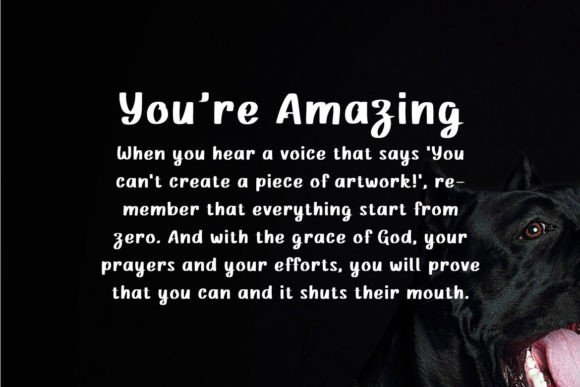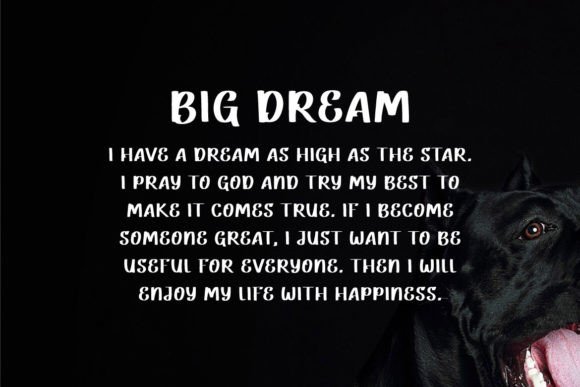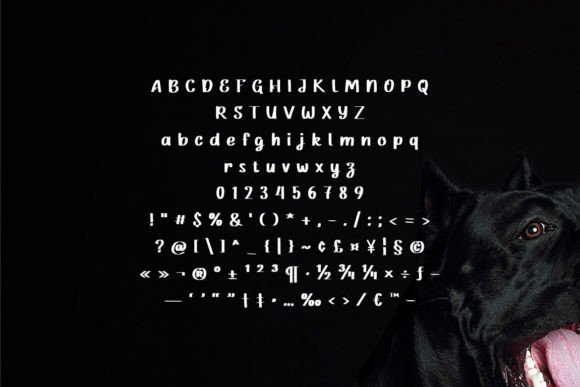
Unleash the Mischief: Introducing the Bad Dog Font
Are you tired of using the same old fonts in your designs? Do you want to add a touch of playfulness and mischief to your text? Look no further than the Bad Dog font, a bold and daring comic display typeface that’s sure to make your designs stand out.
What is Bad Dog Font?
Bad Dog font is a fun and quirky display font that’s perfect for creative projects that need a bit of attitude. With its bold lines, playful curves, and mischievous vibe, this font is ideal for eye-catching headlines, posters, and other designs that need to grab attention.
Key Features of Bad Dog Font
- Bold and Playful: Bad Dog font is a bold and playful typeface that’s perfect for making a statement.
- Comic Display Typeface: With its comic-inspired design, this font is perfect for adding a touch of whimsy to your designs.
- Mischievous Vibe: Bad Dog font has a fun and daring vibe that’s sure to add a bit of mischief to your text.
- Easy to Read: Despite its bold and playful design, Bad Dog font is easy to read, making it perfect for headlines and other display text.
Uses for Bad Dog Font
Bad Dog font is perfect for a wide range of design projects, including:
- Posters: Add a touch of mischief to your posters with Bad Dog font.
- Headlines: Use Bad Dog font to create eye-catching headlines that grab attention.
- Logos: Bad Dog font is perfect for creating fun and quirky logos that stand out.
- Social Media Graphics: Add a bit of personality to your social media graphics with Bad Dog font.
- Crafting Projects: Bad Dog font is also perfect for crafters who want to add a personal touch to their projects, such as handmade cards, scrapbooking, and DIY signs.
Why Choose Bad Dog Font?
There are many fonts to choose from, but Bad Dog font stands out for its unique combination of boldness, playfulness, and mischief. Here are just a few reasons why you should choose Bad Dog font for your next design project:
- Unique Design: Bad Dog font has a unique design that’s sure to make your designs stand out.
- Versatile: Bad Dog font is perfect for a wide range of design projects, from posters and headlines to logos and social media graphics.
- Fun and Daring: Bad Dog font adds a fun and daring vibe to your text, making it perfect for creative projects.
Tips for Using Bad Dog Font
Here are a few tips for getting the most out of Bad Dog font:
- Use it Sparingly: Because Bad Dog font is bold and playful, it’s best to use it sparingly to avoid overwhelming your design.
- Pair it with Other Fonts: Bad Dog font pairs well with other fonts, so don’t be afraid to experiment with different combinations.
- Experiment with Colors: Bad Dog font looks great in a variety of colors, so don’t be afraid to experiment and find the perfect color for your design.
If you’re looking for a font that adds a touch of mischief to your designs, look no further than Bad Dog font. With its bold and playful design, this font is perfect for creative projects that need a bit of attitude. Whether you’re a designer or a crafter, Bad Dog font is sure to become a favorite in your collection.